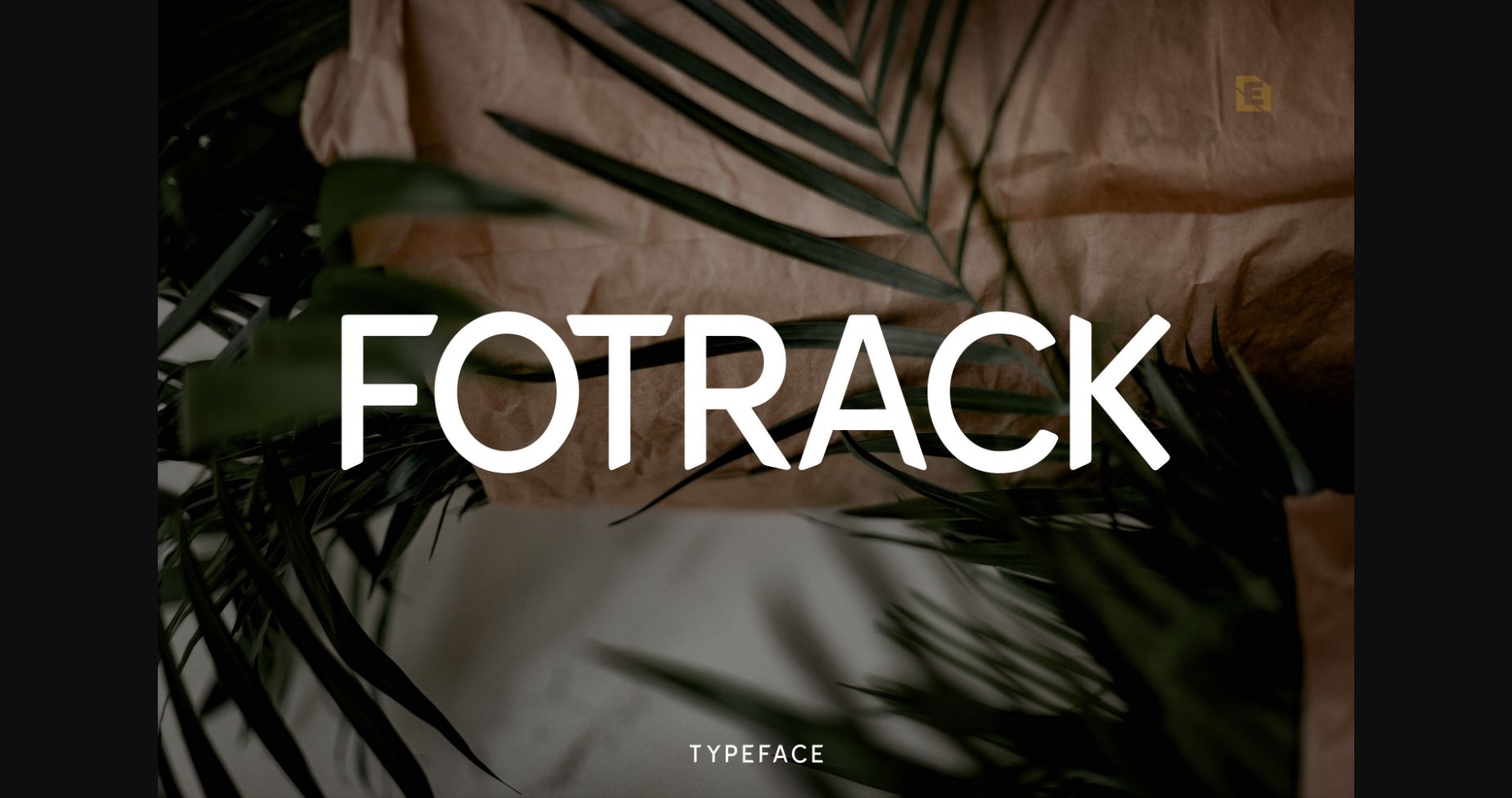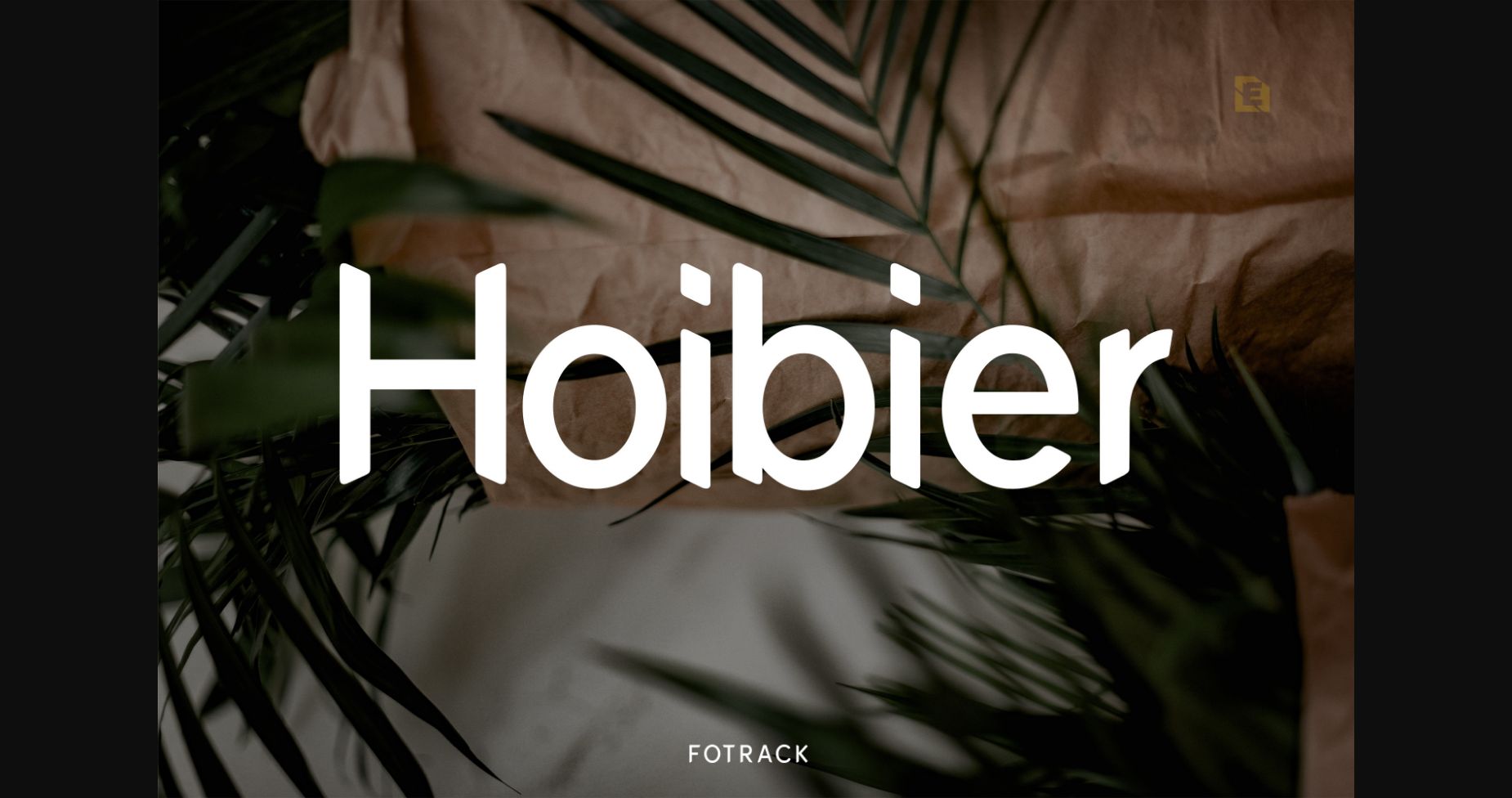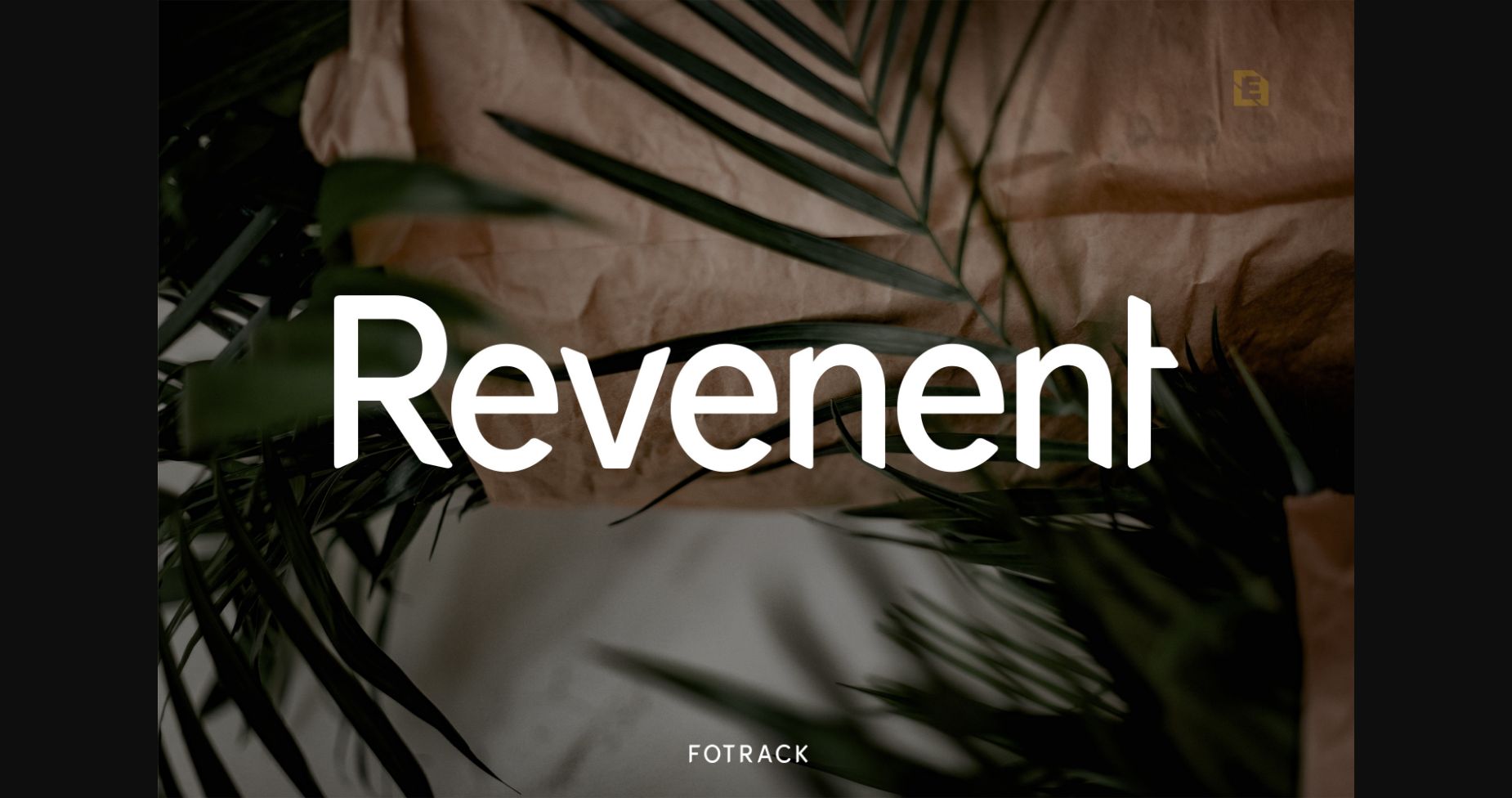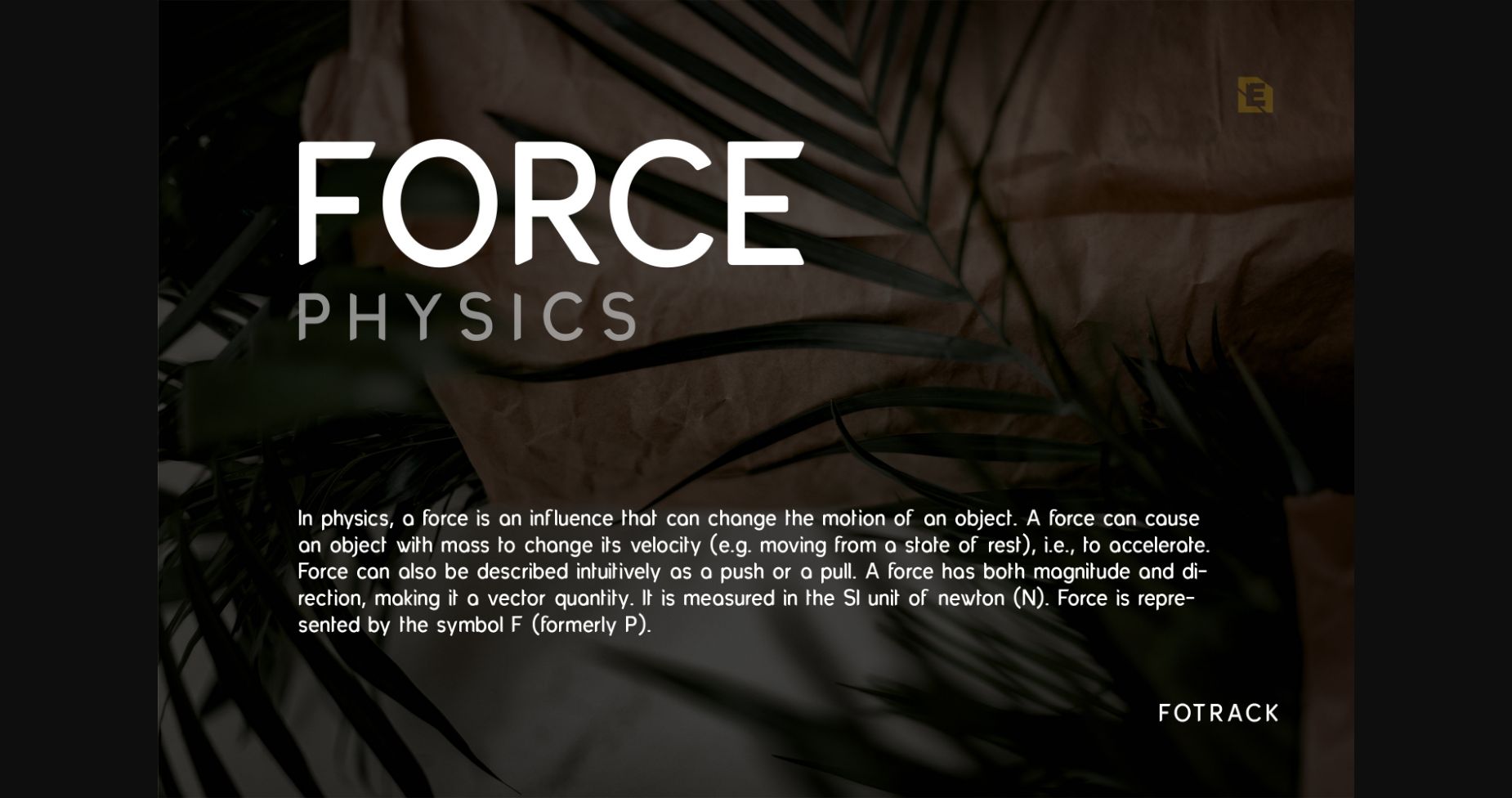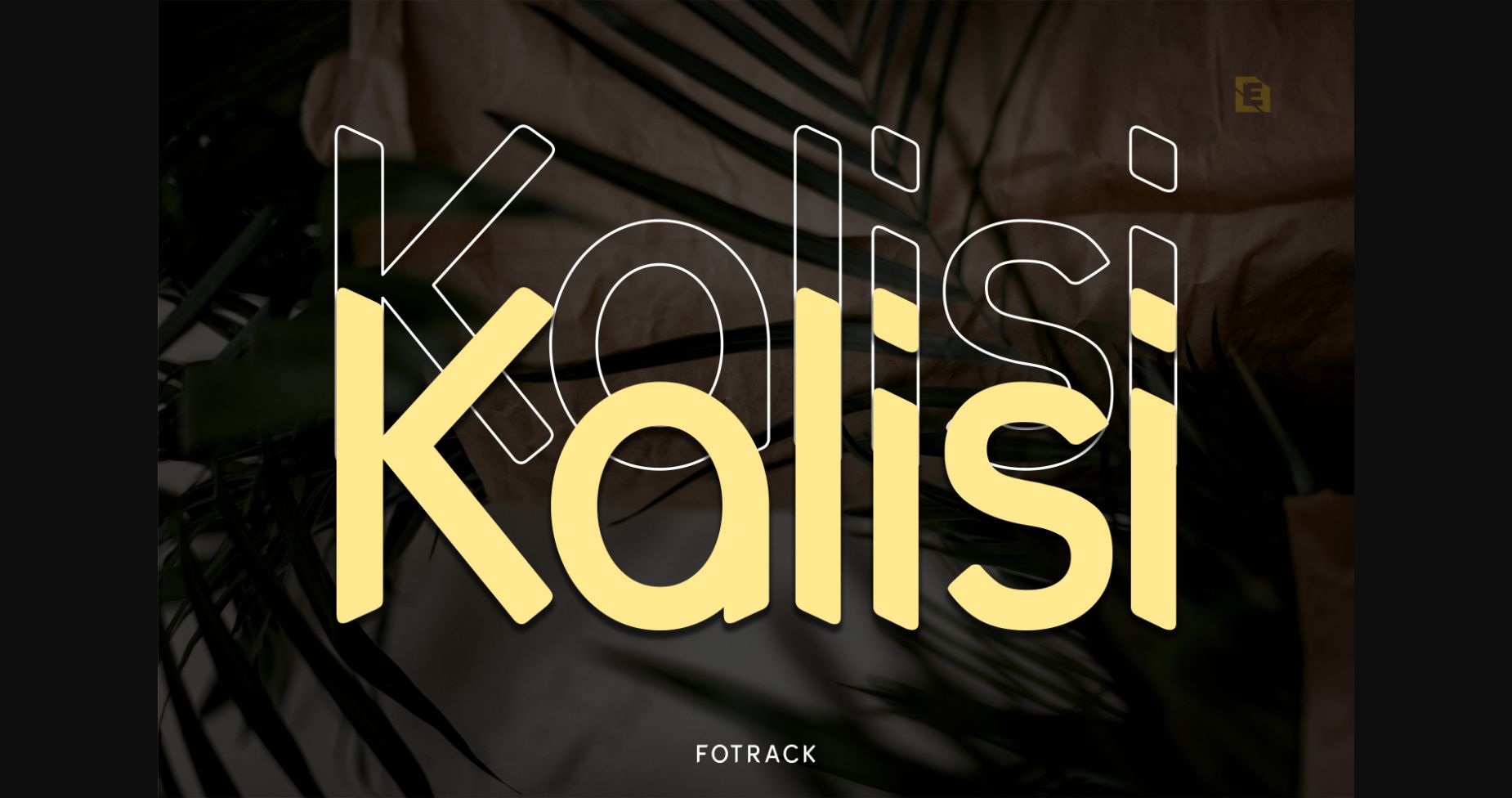
Fotrack Typeface Font
About Fotrack Typeface Font
Fotrack is a unique and modern sans serif font. Simple and easy to use, this font will be very beautiful if you mix it with your various craft designs.